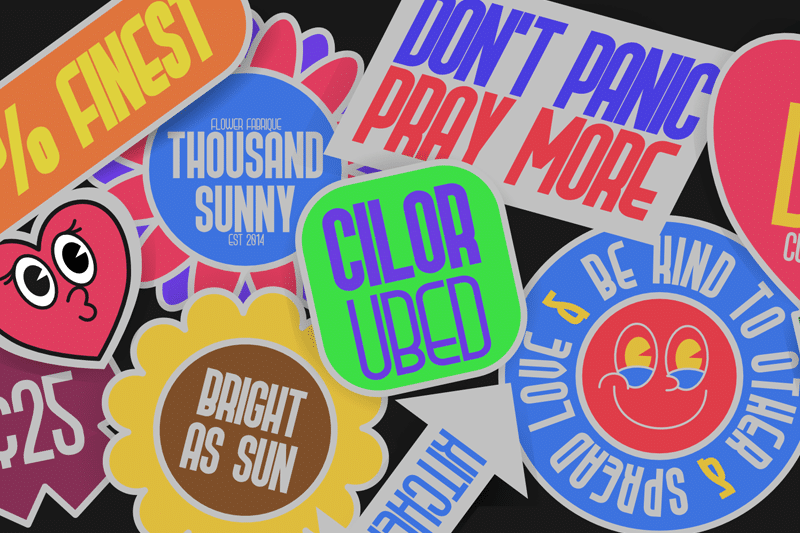
A stunning display typeface for designers, Prosa GT Font is a truly unique all-caps display typeface particularly dedicated for display, headline, branding, logotype usage.
Prosa GT Font will be best suited for creating nicely looking logos, brand identities and headlines. Just see the demo images given above for an abstract idea about the capability of this typeface.